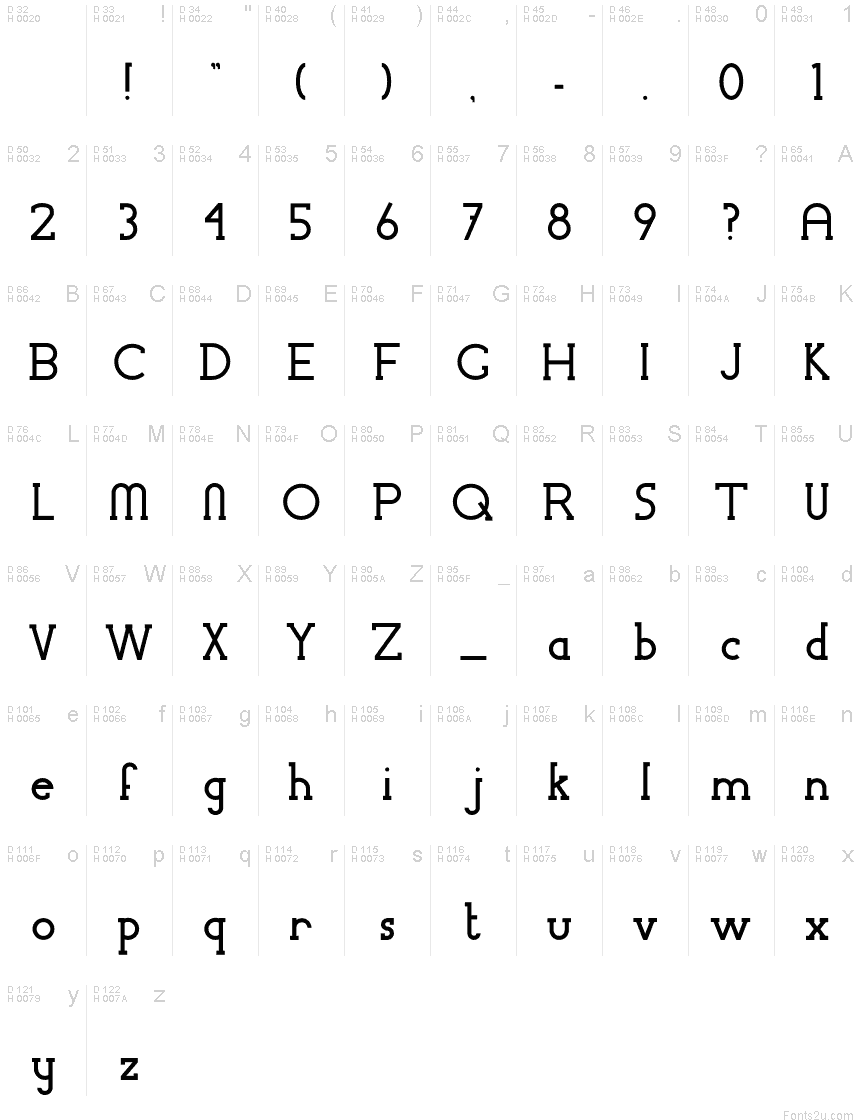
Chremsel Serif Bold is a free retro serif with towering proportions, broad circular curves, and thin strokes capped by flat slab-like serifs. Its mixture of narrow uprights and generously rounded letters recalls decorative early modernist display type.
It can shape a vintage identity for cocktail-bar branding and music posters, two different settings linked by its theatrical geometry. Book covers and event invitations also suit its mix of elegance and eccentricity. The style is most at home with audiences drawn to vintage nightlife, cabaret, and Art Deco design.
Chremsel Serif Bold